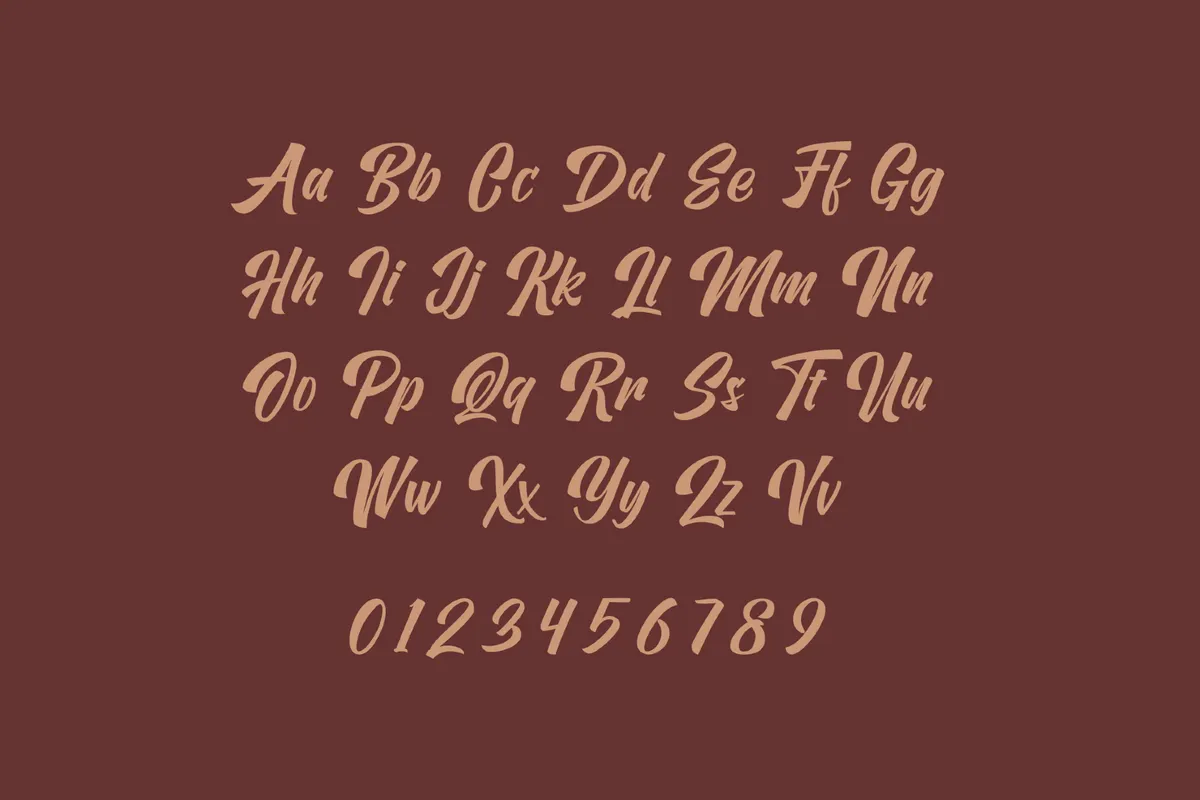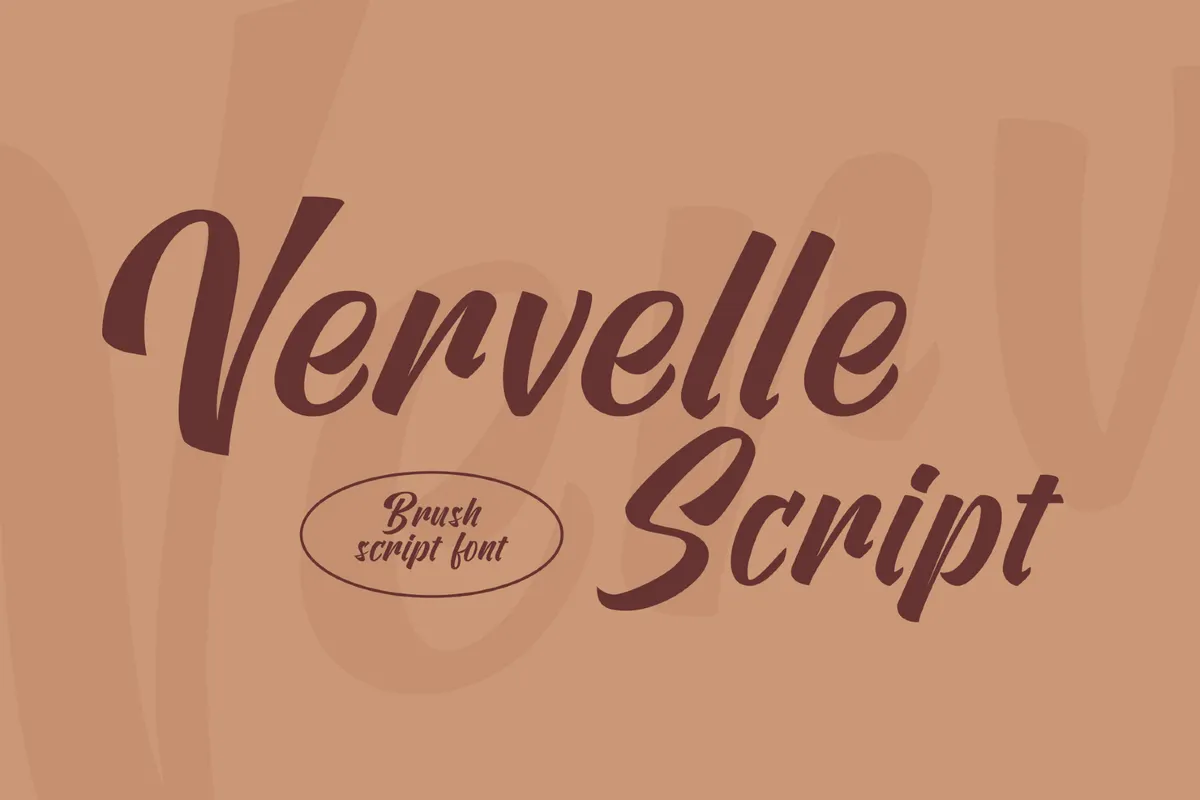
Vervelle Script
Vervelle Script is an unconnected brush script with bold strokes and quick, rounded turns, rooted in 1970s headline lettering. Brush-pen pressure and tidy spacing keep words readable at scale, so it suits logo wordmarks, packaging fronts, label titles, poster headers, t-shirt graphics, magazine covers, and social campaign lines.